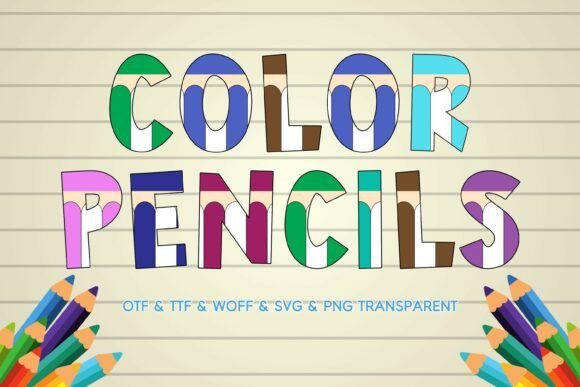
Introducing the Color Pencils Font: A Playful and Vibrant Addition to Your Design Toolbox
Are you tired of using the same old fonts in your designs? Do you want to add a touch of playfulness and creativity to your projects? Look no further than the Color Pencils font! This delightful color font is designed to mimic the appearance of color pencils, bringing instant visual interest and personality to your designs.
Perfect for Educational Materials and Children’s Designs
The Color Pencils font is ideal for educational materials, children’s designs, posters, bulletin boards, school projects, and playful branding. Its vibrant and cheerful appearance is sure to capture the attention of students and teachers alike, making it a great addition to any educational design. Whether you’re creating worksheets, activity sheets, or educational posters, this font is sure to bring a smile to your audience’s faces.
What Makes the Color Pencils Font So Special?
So, what sets the Color Pencils font apart from other fonts on the market? Here are just a few things that make it so special:
- Playful and vibrant appearance: The Color Pencils font is designed to mimic the appearance of color pencils, bringing a touch of playfulness and creativity to your designs.
- Instant visual interest: The font’s vibrant colors and playful design make it perfect for grabbing the attention of your audience.
- Cheerful and tactile energy: The font’s design is sure to bring a smile to your audience’s faces, making it perfect for educational materials, children’s designs, and playful branding.
How to Use the Color Pencils Font in Your Designs
Using the Color Pencils font in your designs is easy! Here are a few tips to get you started:
- Pair it with bold and bright colors: The Color Pencils font is designed to be bold and bright, so pair it with colors that complement its playful appearance.
- Use it for headings and titles: The font’s playful design makes it perfect for headings and titles, adding a touch of personality to your designs.
| Font Name | Color Pencils Font |
| Author | Adalin Digital |
In conclusion, the Color Pencils font is a playful and vibrant addition to any design toolbox. Its multiple formats, compatibility with popular design software, and cheerful design make it perfect for educational materials, children’s designs, posters, bulletin boards, school projects, and playful branding. Whether you’re a designer, teacher, or crafter, this font is sure to bring a touch of creativity and personality to your designs.